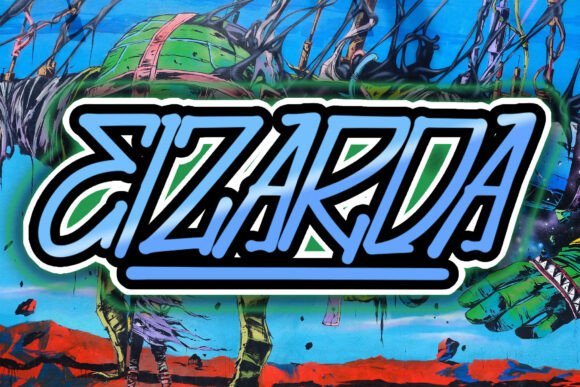
The Perfect Brush Stroke for Your Next Design Project
Have you ever been brainstorming a creative project, flipping through design ideas in your head, only to feel like something’s missing – that one special element that brings your concept to life? For designers, this feeling is all too familiar. It’s the moment when the perfect font can make all the difference.
Enter Eizarda Font, a stunning monoline brush font that adds a touch of elegance and sophistication to any design. Crafted with unique character shapes, Eizarda Font is the perfect choice for logos, branding, posters, and creative projects. Its clean yet artistic style makes it a valuable addition to any designer’s toolkit.
Whether you’re looking to elevate your brand or create a lasting impression, Eizarda Font is the perfect brush stroke to bring your design to life.
Eizarda Font Key Features
- Unique Characteristics: The font features a unique blend of fantasy and medieval elements, with intricate details and ornate designs.
Eizarda Font Review
Overall, I’d say Eizarda Font is a unique and intriguing addition to any design project. ✨ The font’s bold, cursive lines immediately caught my attention, and I can see it working well for headings, titles, and other emphasis areas.
- ✨ The font’s dynamic, flowing lines make it perfect for creative and expressive designs.
- ✨ Eizarda Font comes in a variety of weights and styles, giving designers plenty of options for customization.
- ✨ The font is relatively easy to read, even at smaller sizes, making it suitable for body text as well.
However, there are some limitations to consider: ⚠️ The font may not be the best choice for formal or professional designs, as its playful nature may not fit the tone.
- ⚠️ The font may be too flashy or overwhelming for some audiences, so use it sparingly.
- ⚠️ Eizarda Font may not be as versatile as other fonts, and its unique style may not translate well to certain design elements.
In conclusion, Eizarda Font is a great addition to any designer’s toolkit, but it’s essential to use it thoughtfully and consider the audience and design context. With its unique style and versatility, it’s a great choice for creative projects, but may not be the best fit for more formal designs.
The Eizarda Font is ideal for:
- Typography-heavy designs, such as logos or posters.
- Presentations and documents that require a touch of sophistication.
- Titles and headings that need to stand out.